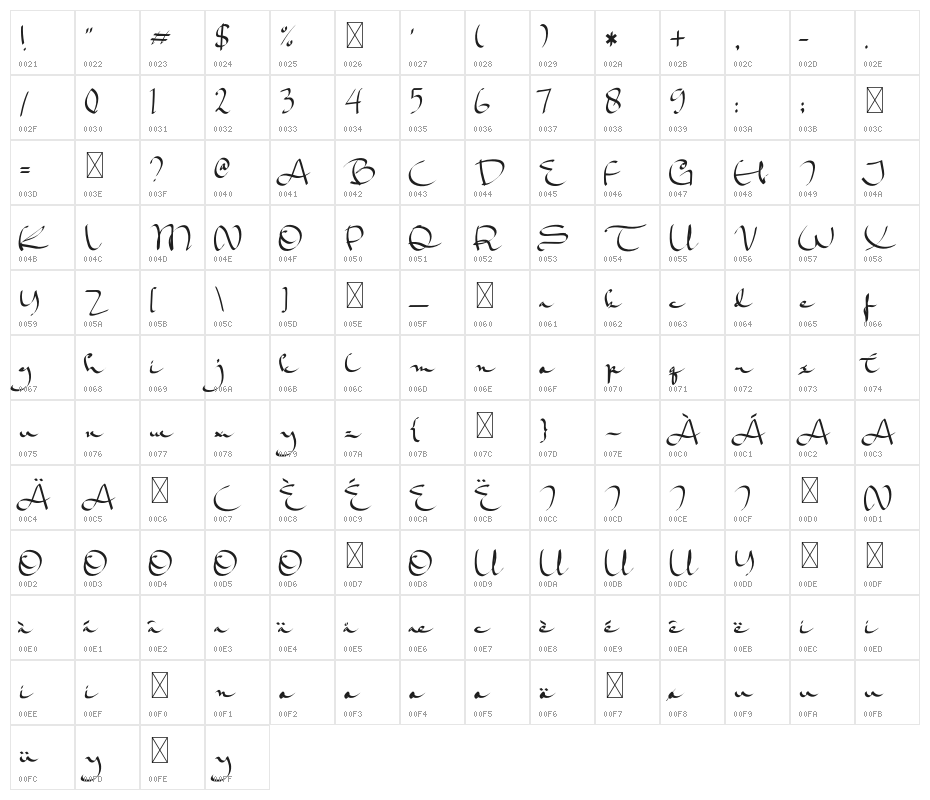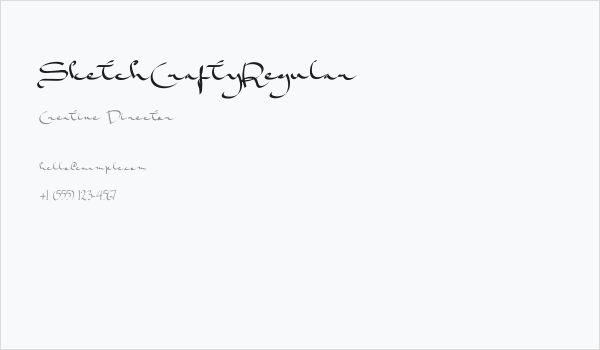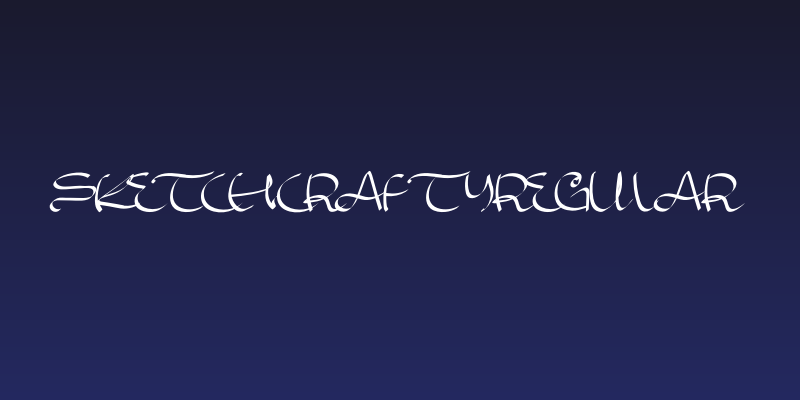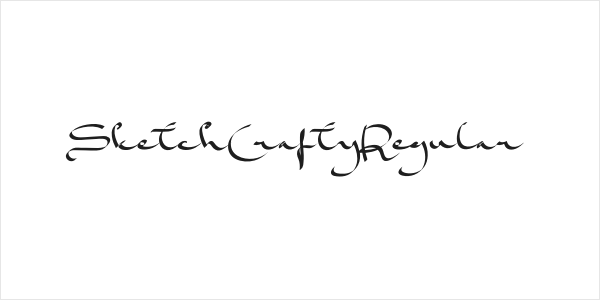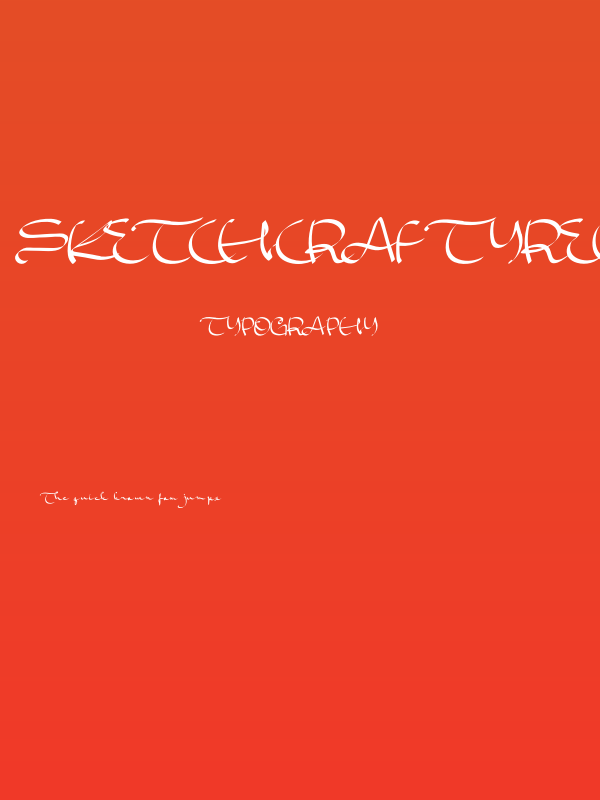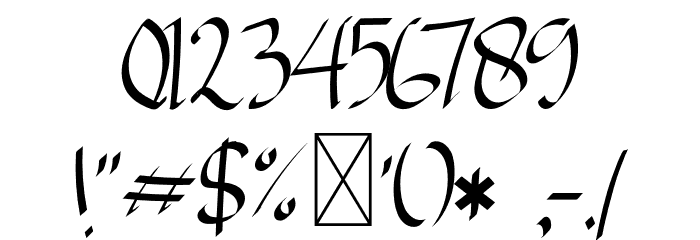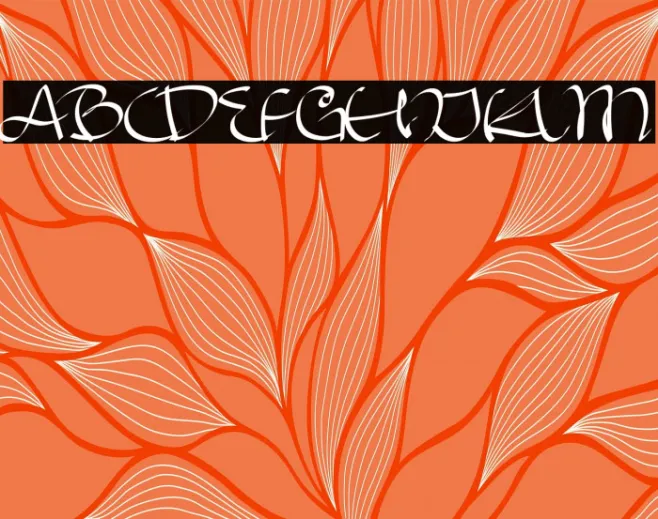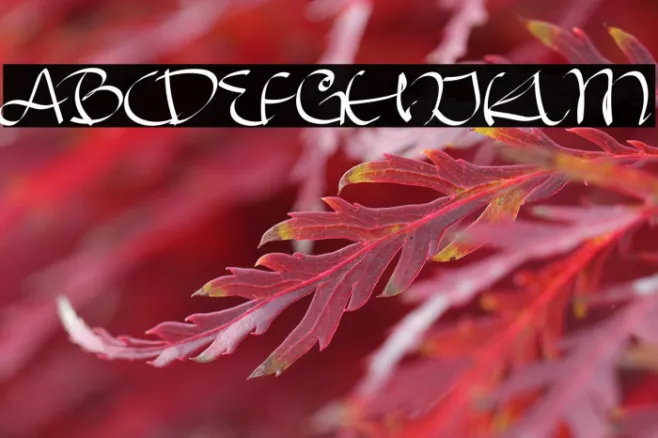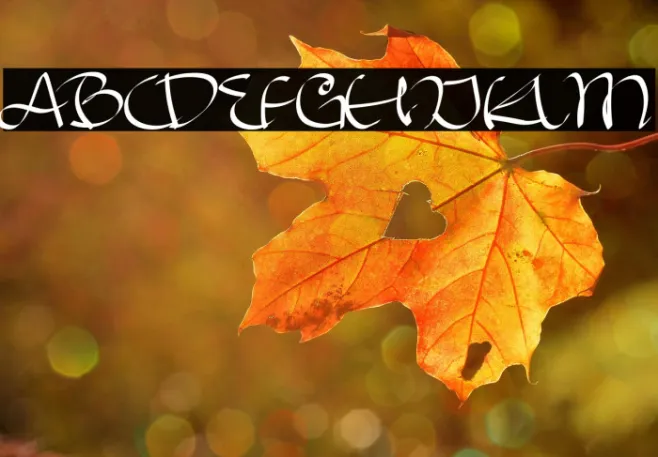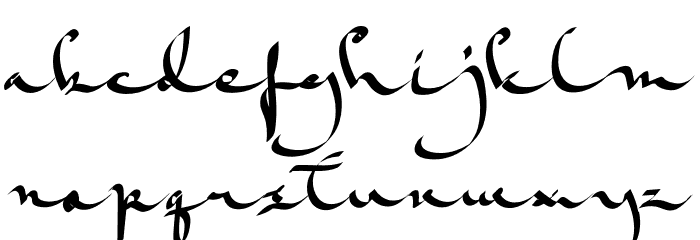
SketchCraftyRegular Font
SketchCraftyRegular Description
This font features an elegant and flowing script style, characterized by its smooth, cursive strokes and artistic flair. The uppercase letters are bold and sweeping, with a sense of movement that suggests a hand-drawn quality. The lowercase letters maintain this fluidity, offering a harmonious blend of curves and lines. Numbers and special characters are crafted with the same attention to detail, ensuring consistency throughout. The overall appearance is both sophisticated and approachable, making it suitable for a variety of creative applications.